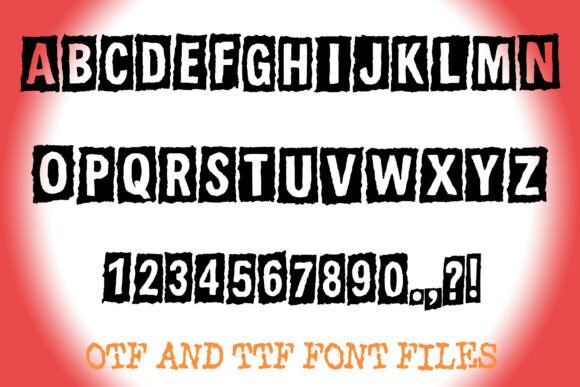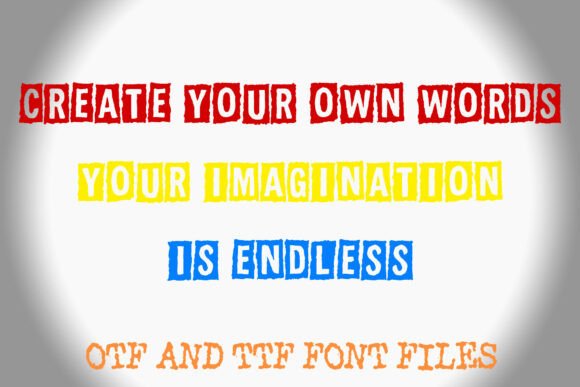
Introduction to Ransom Punk Font
As a designer, there’s nothing quite like the thrill of bringing a creative project to life. You’ve spent hours brainstorming, sketching, and refining your idea, and finally, it’s time to add the finishing touches. But, sometimes, the perfect font can be the missing piece that takes your design from good to great. That’s where Ransom Punk Font comes in – a fun, DIY cartoon style font that lets you unleash your inner rebel and create your own unique words and colour them to your vision!
Imagine adding a bold, rebellious punch to your typography with a font that’s reminiscent of classic punk zines and ransom notes. Ransom Punk Font delivers just that, with its cut-and-paste collage style and rough-edged blocks that give your design an aggressive, raw edge. Perfect for designers looking to add a dose of punk energy and anarchic flair to their next project, this font is a valuable design resource that’s sure to stand out.
Key Features of Ransom Punk Font
- Unique, bold, and distressed font style, perfect for creative projects and designs.
- Includes a transparent background option, allowing for easy customization and integration into various designs.
- Supports a wide range of languages, making it a versatile design resource.
- High-resolution design (up to 1024×1024 pixels) ensures crisp and clear display, even in large sizes.
- Can be easily scaled and manipulated to fit various design requirements, from small text to large headings.
Honest Review: Ransom Punk Font
As a designer, I’m always on the lookout for unique and creative resources to elevate my projects. The Ransom Punk Font has been a recent addition to my design arsenal, and I’m excited to share my honest thoughts on this intriguing font.
- High-quality design: The Ransom Punk Font boasts a bold, graffiti-inspired aesthetic that’s perfect for adding a touch of edginess to my creative projects.
- Transparent background: This font’s transparent background allows for seamless integration with images and backgrounds, giving me more flexibility in my designs.
- Limited character set: While the Ransom Punk Font is great for headings and titles, its limited character set may not be suitable for extensive text-based projects.
- Not suitable for all audiences: The font’s edgy design may not be suitable for projects targeting a more conservative or family-friendly audience.
Overall, I’m impressed with the Ransom Punk Font’s unique design and versatility. While it may have some limitations, it’s an excellent addition to any designer’s toolkit, particularly for creative projects that require a bold and eye-catching look.
Ransom Punk Font
Tips for Getting the Most Out of Ransom Punk Font
Use Ransom Punk Font in creative projects where you want to add a touch of edginess. Pair it with other design resources to create a unique and eye-catching design. Make sure to use high-quality images and graphics to complement the font.
Ransom Punk Font is perfect for use in social media graphics, posters, and flyers. It’s also great for use in blog posts and articles where you want to add a touch of personality to your writing.